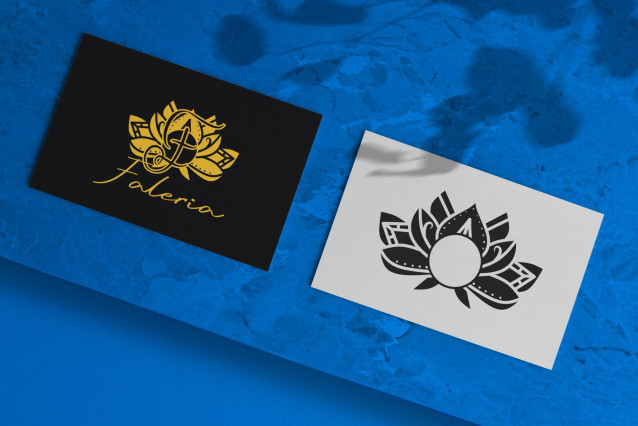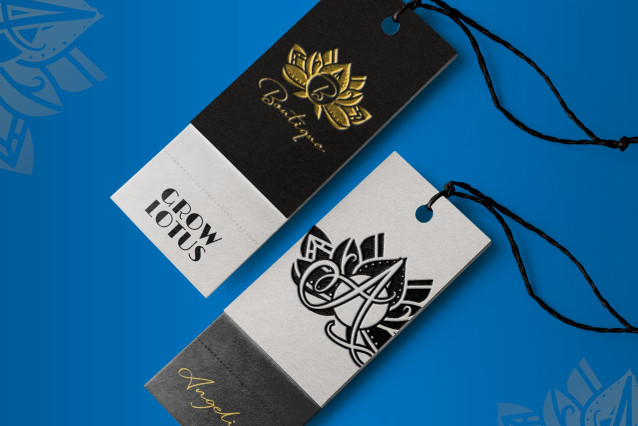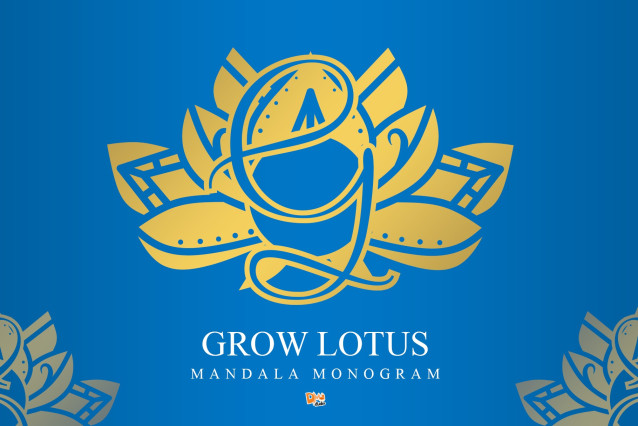
Grow Lotus Mandala Monogram Font
Grow Lotus Mandala Monogram is a graceful and artistic font that intertwines the symbolic growth of the lotus flower with intricate mandala artistry. Each letter is designed with blooming elegance, making it an ideal choice for nature-inspired branding, wedding invitations, holistic designs, and spiritual projects.